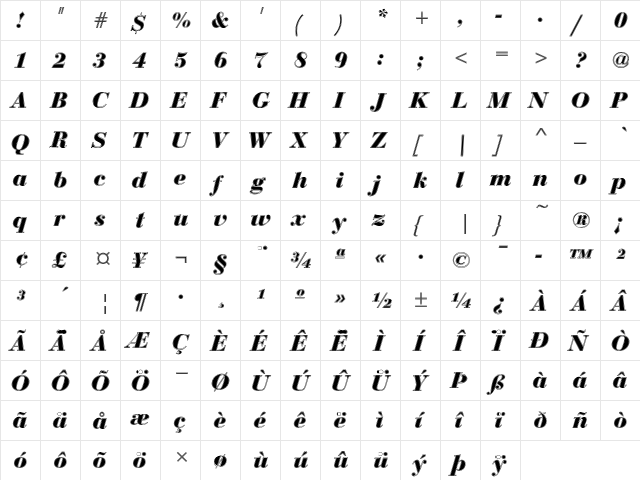
Bauer Bodoni T In1 Regular Font Preview
Bauer Bodoni T In1 Regular
Bauer Bodoni T In1 Regular Font Details
Design Context for Bauer Bodoni T In1 Typeface
Bauer Bodoni T In1 is a composed and adaptable typeface that performs quietly and consistently across a wide range of design contexts.